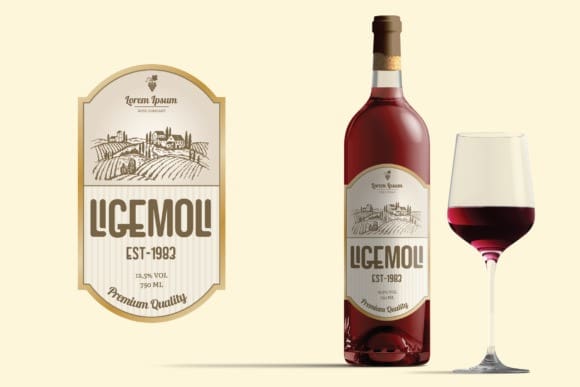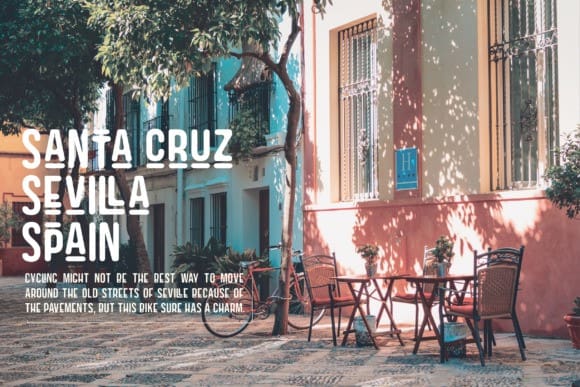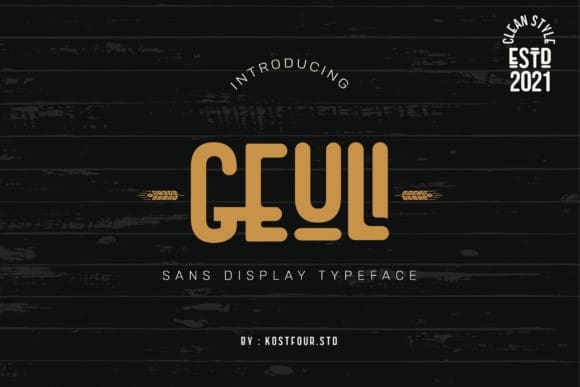
Geuli Font
Geuli Font is a cool, modern and minimalist display font. This font is ideal for writing web designs, business cards, or pretty much anything else that requires a unique touch.